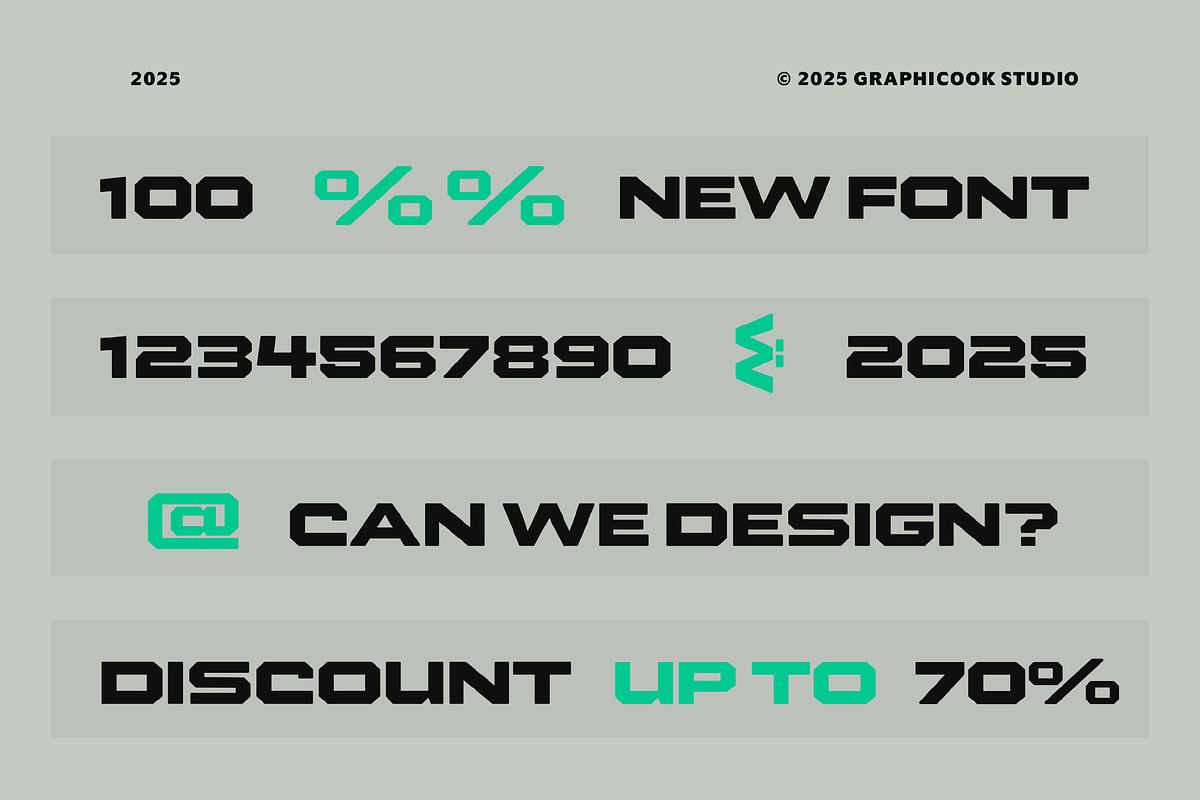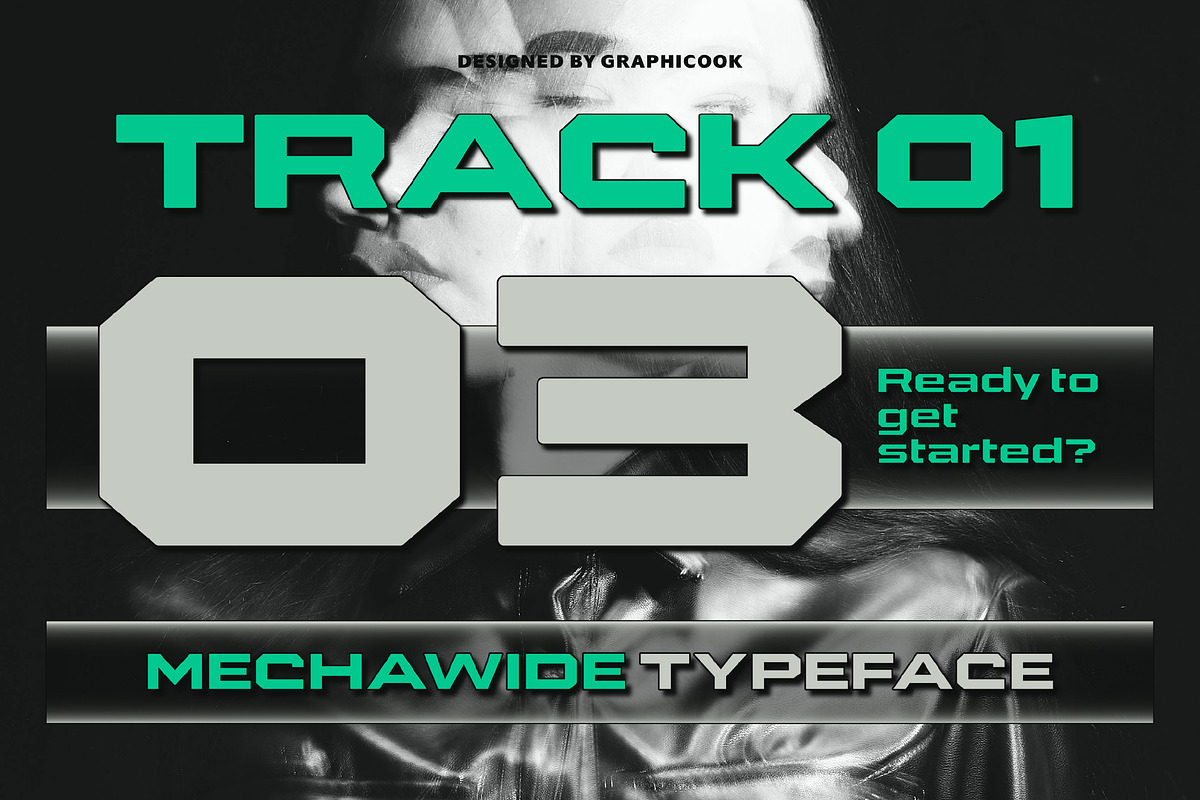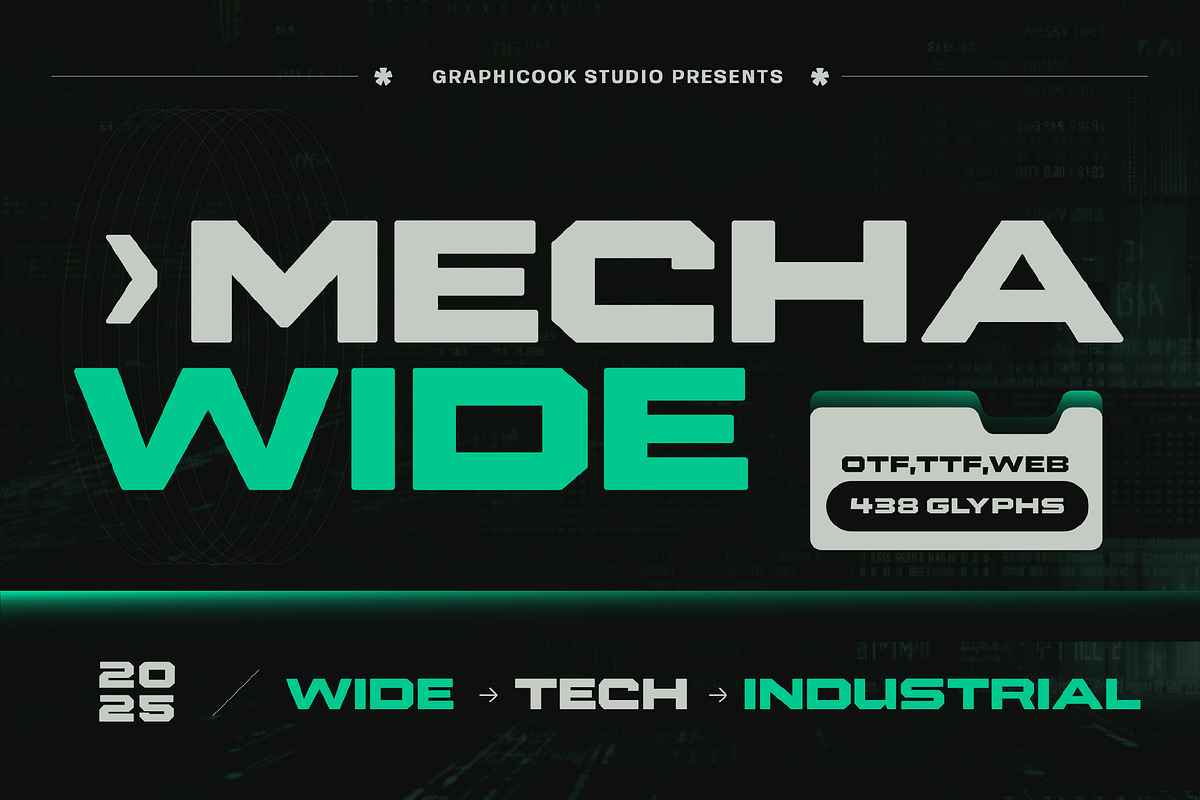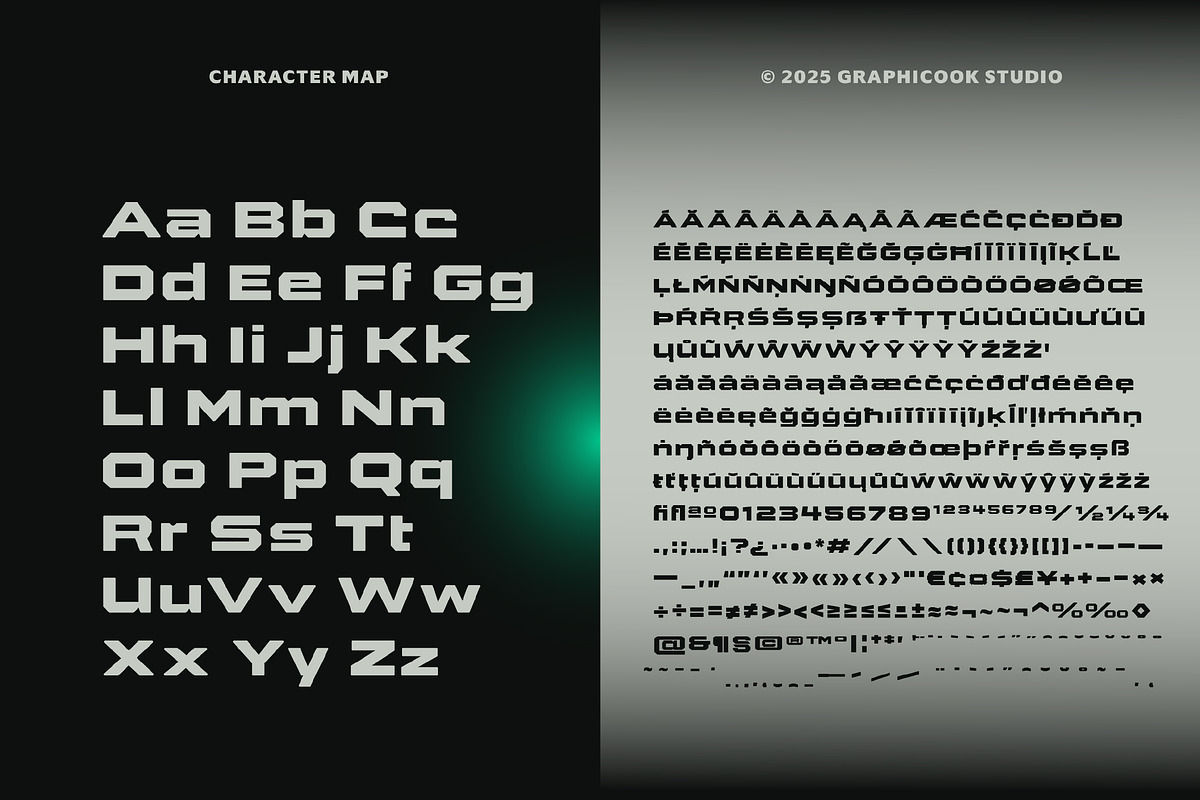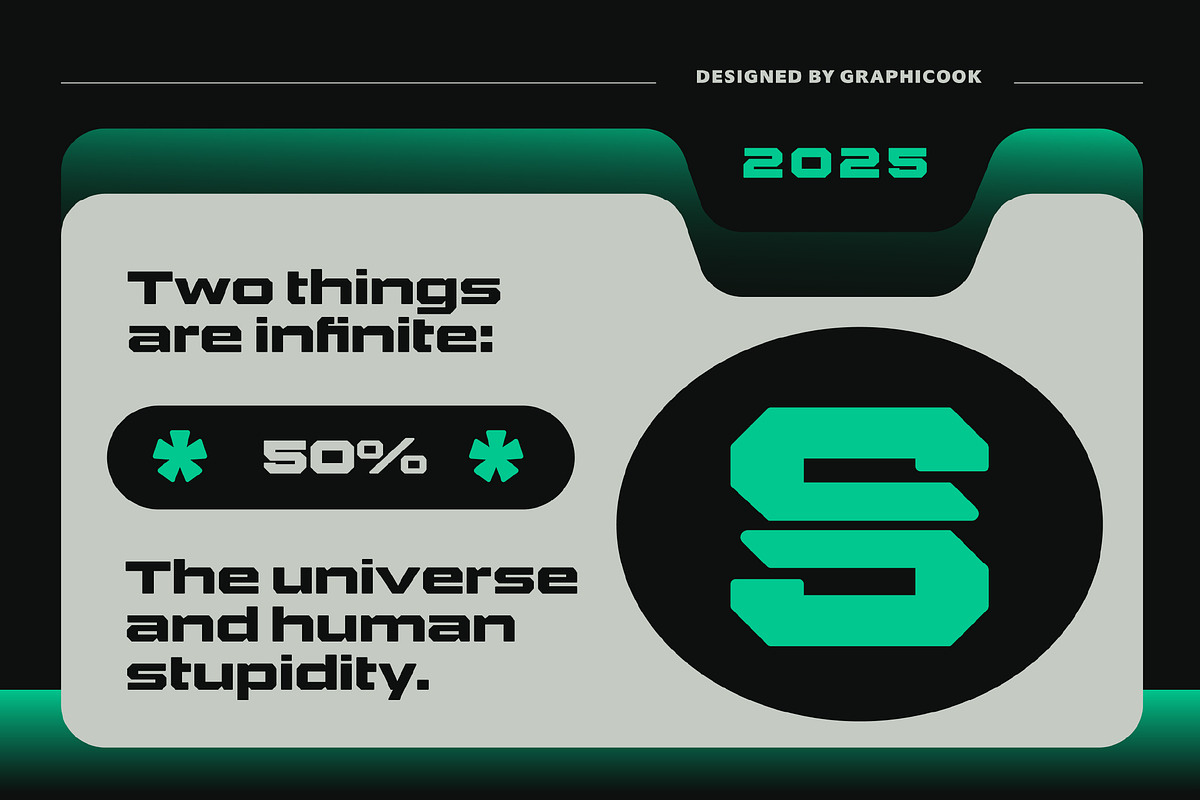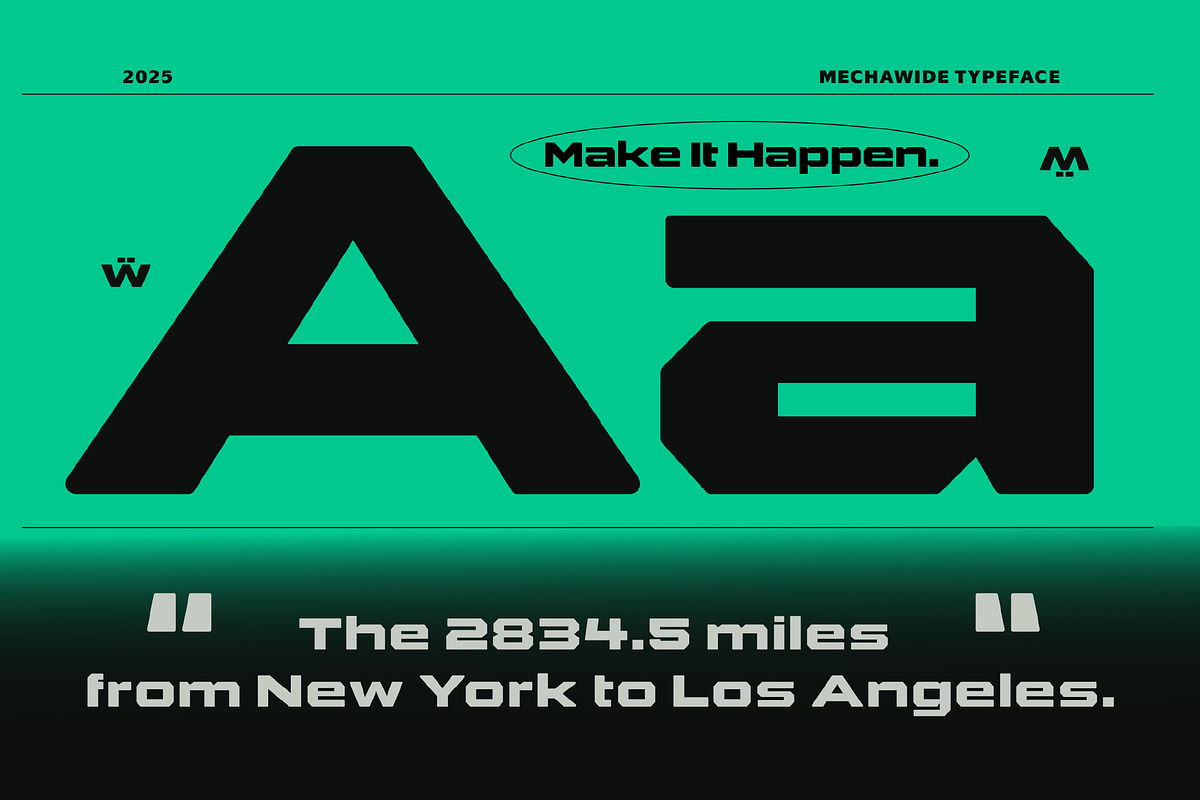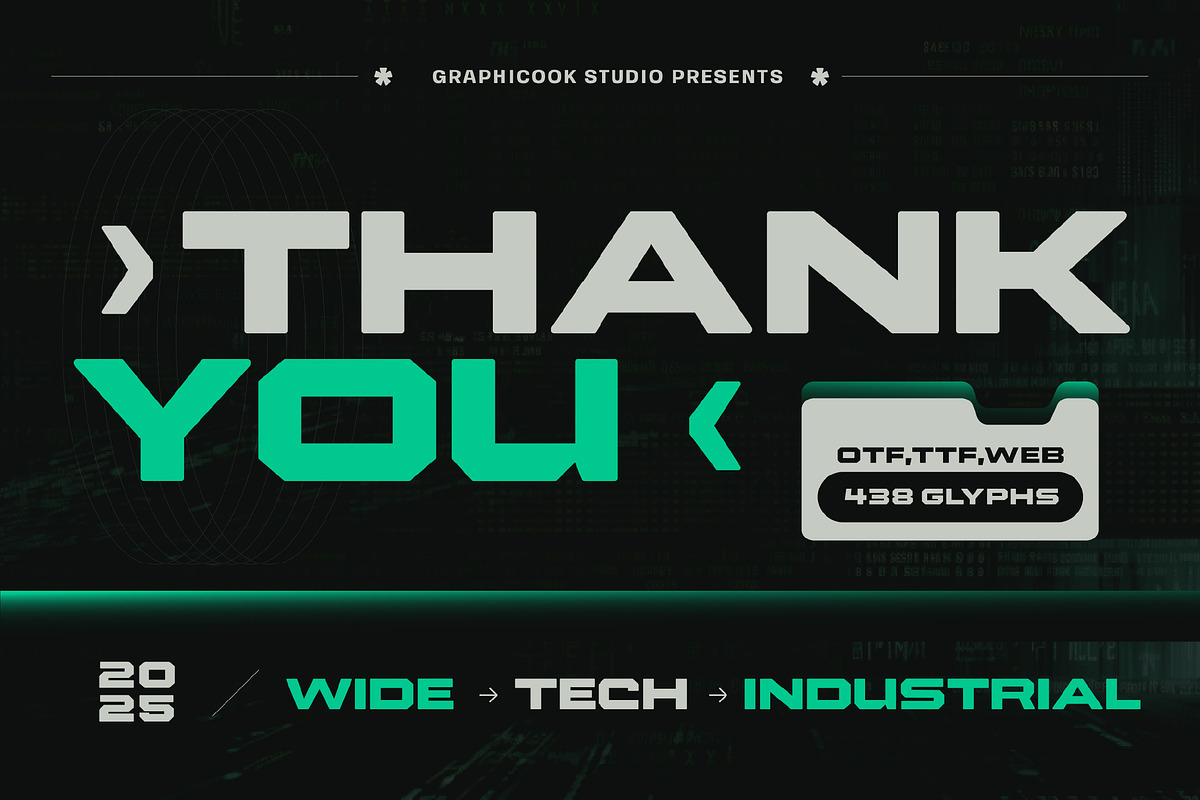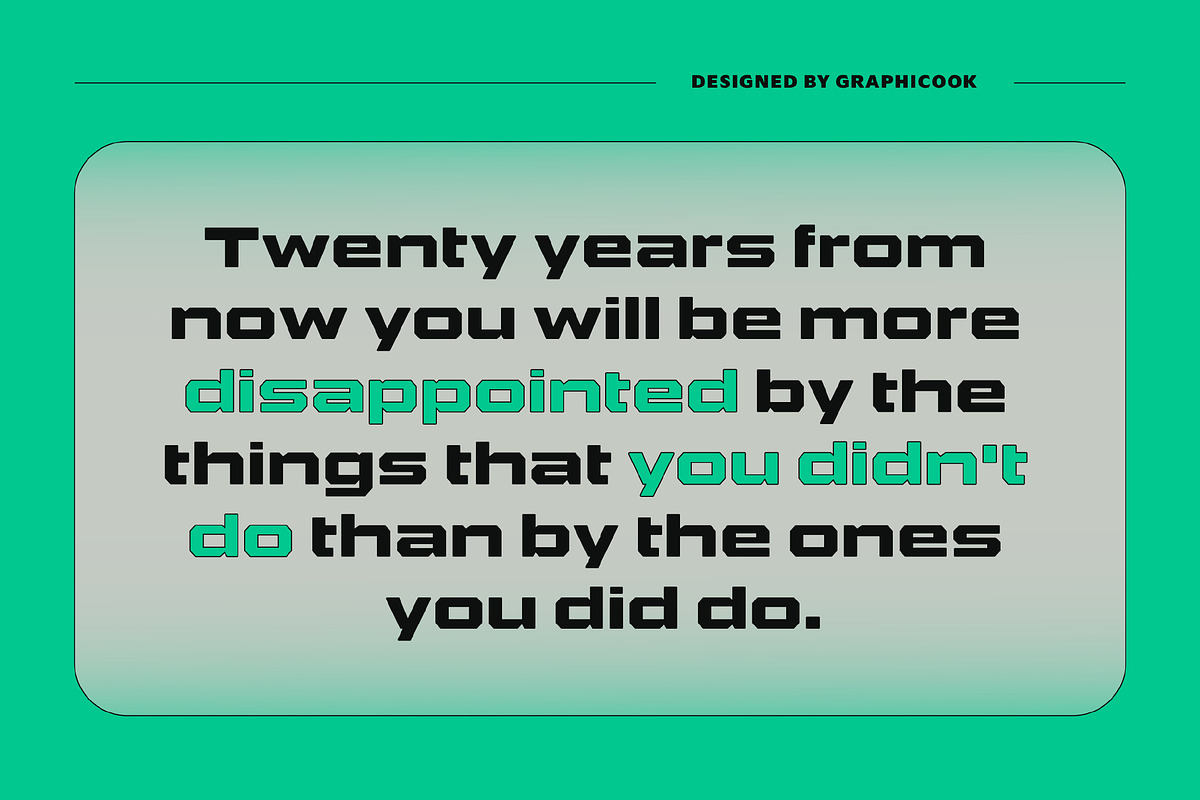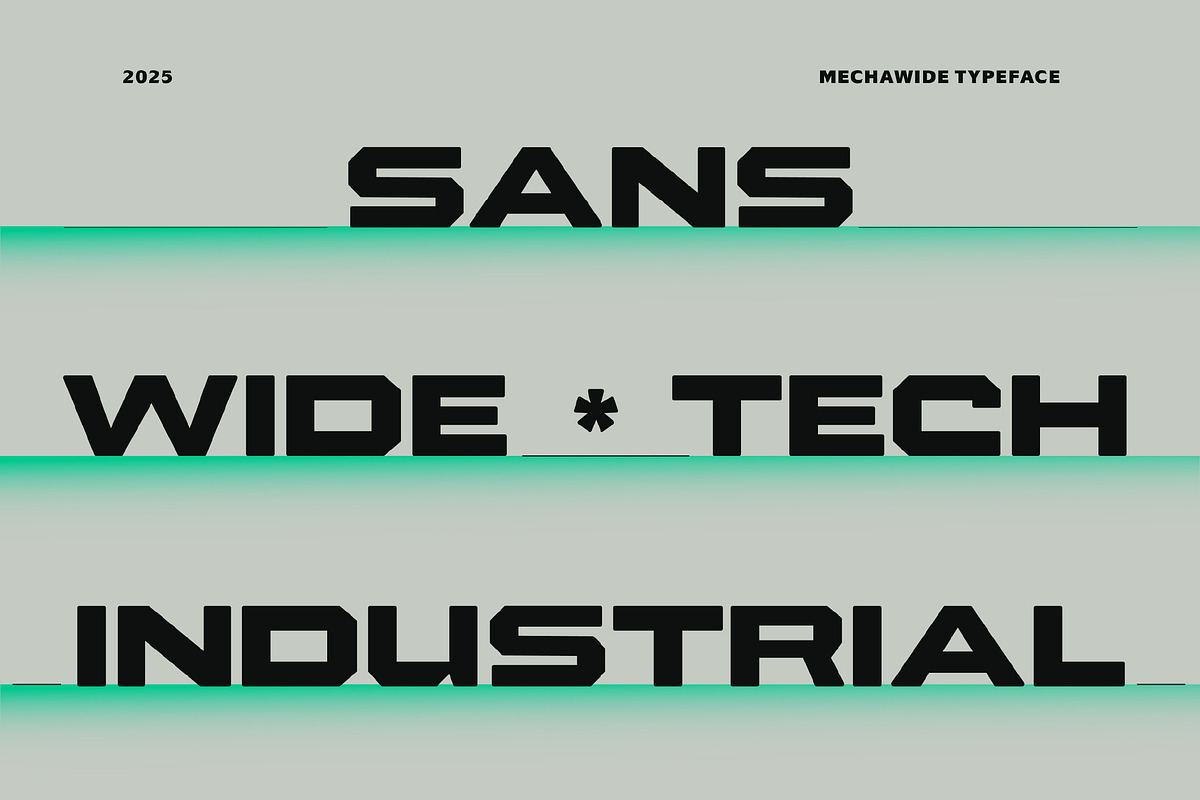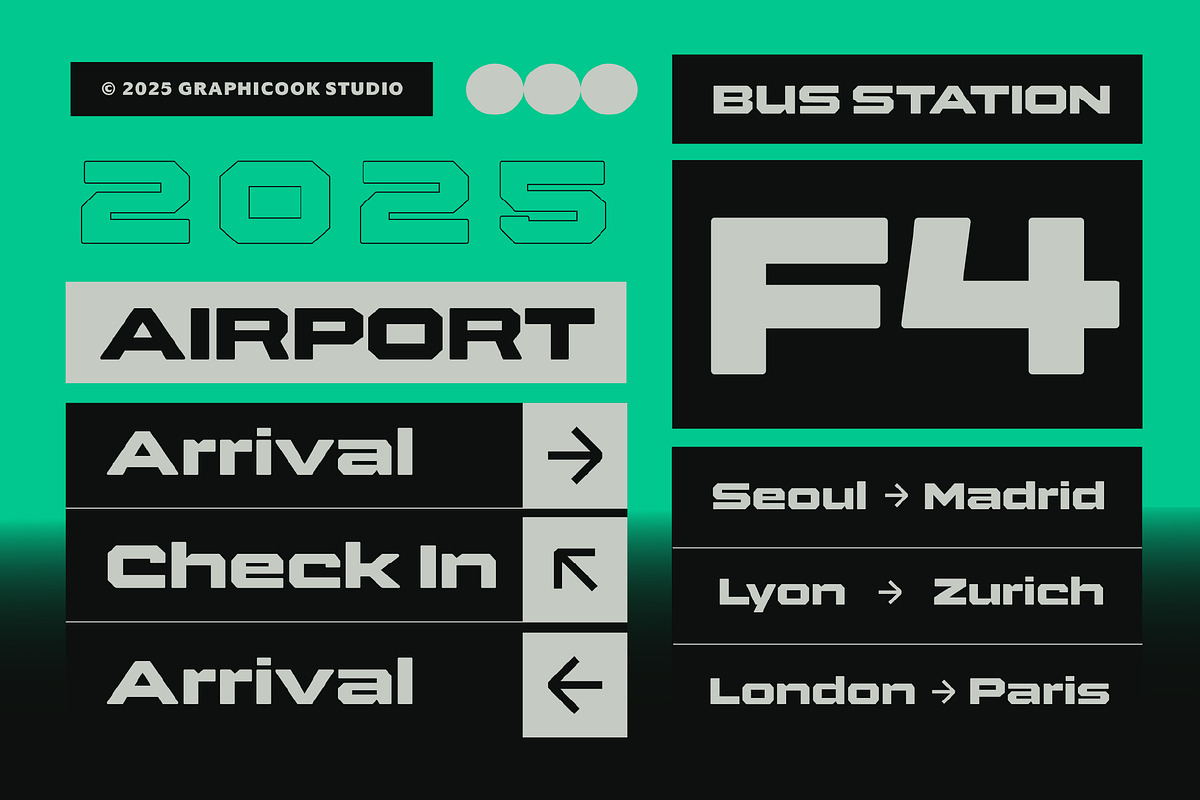
Mechawide
Mechawide is an experimental sans-serif font with wide letterforms that convey a modern, futuristic impression. It’s perfect for headlines, professional designs, or projects with a technology-driven theme.
Mechawide is perfect for headlines, logotypes, magazines, packaging, quotes, movies, games, cover albums, book covers, and flyers, it's a perfect solution for creating eye-catching designs that stand out in any context.